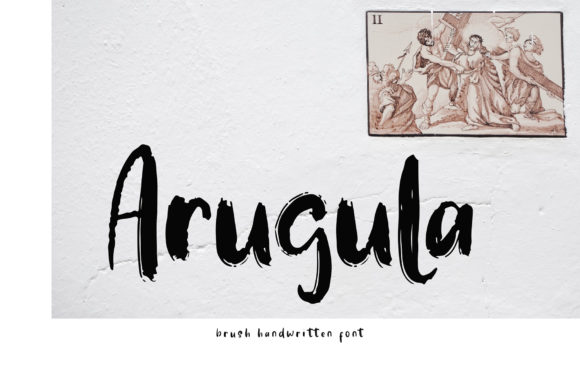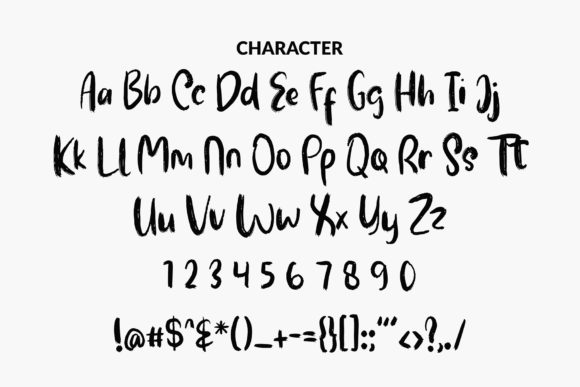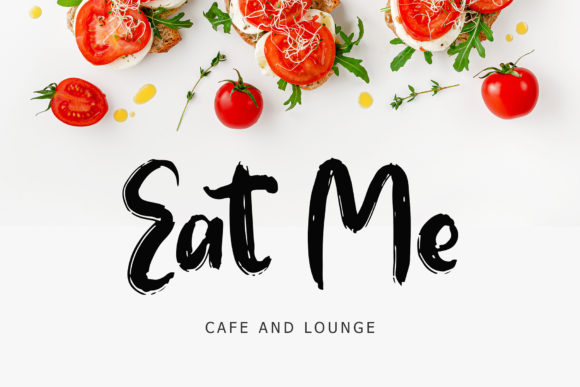
About Arugula Font
Arugula is a unique and original handwritten font, that will make your design look sporty, energetic, and modern! Arugula is perfect for branding, logos, wedding designs, social media posts, advertisements, product packaging, T-shirt design, product designs, labels, photography, watermarks and more.